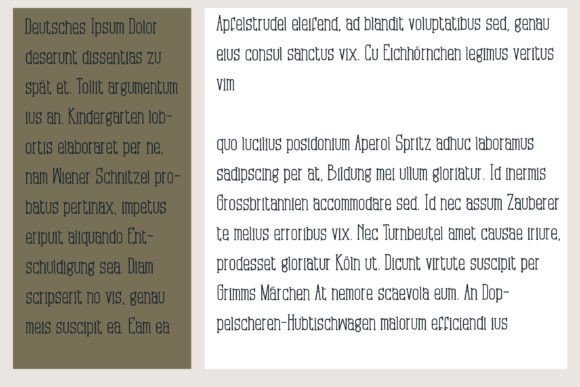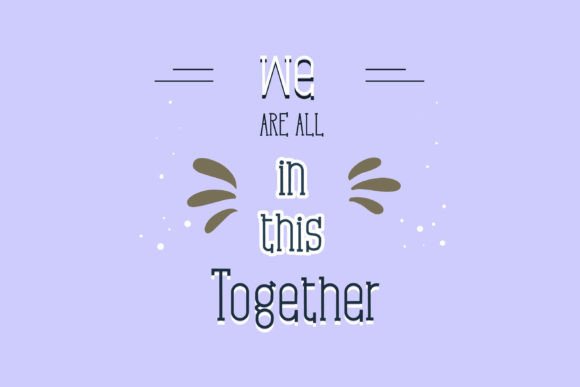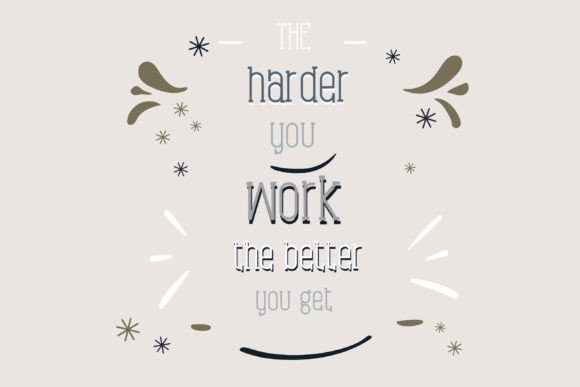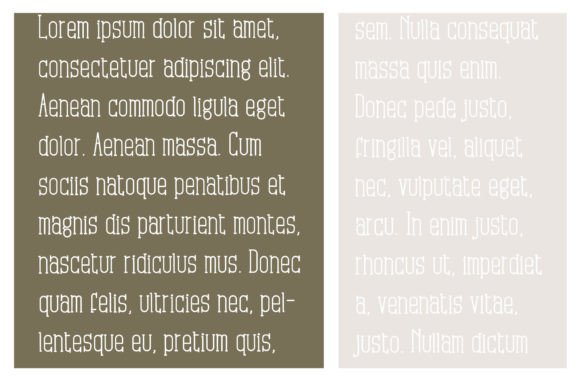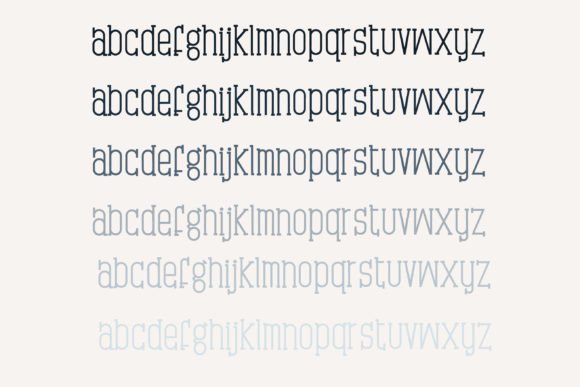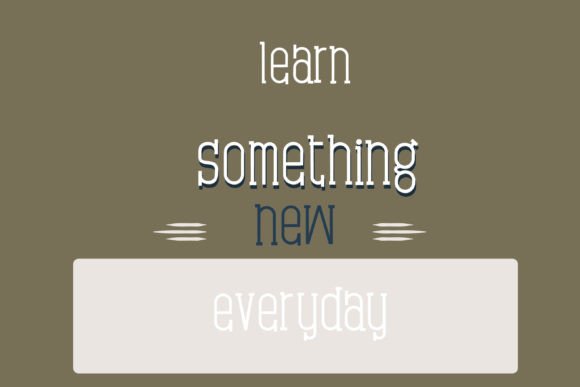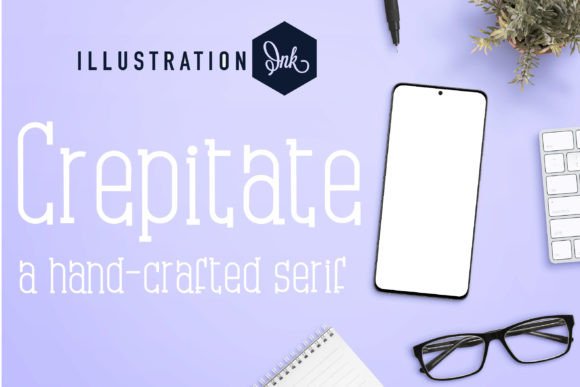
Introducing Crepitate Font: A Hand-Crafted Serif Beauty
Are you a designer or crafter looking for a unique and original font to elevate your creative projects? Look no further than Crepitate Font, a stunning hand-crafted serif font that is sure to capture your imagination. With its distinctive slab serifs and rustic charm, Crepitate Font is the perfect choice for a wide range of crafty ideas, from letterheads and titles to stationery and more.
The Story Behind Crepitate Font
Crepitate Font is a carefully crafted font that has been designed to bring a touch of handmade charm to your designs. The font features slab serifs throughout, giving it a distinctive and eye-catching look that is sure to stand out. The font has been meticulously hand-crafted to ensure that every letter and character is unique and full of character.
Key Features of Crepitate Font
- Hand-crafted serif font: Crepitate Font is a true original, with every letter and character carefully hand-crafted to ensure a unique and authentic look.
- Slab serifs throughout: The font features slab serifs throughout, giving it a distinctive and rugged charm.
- Original look: Crepitate Font has an original look that will appeal to a wide range of crafty ideas, from letterheads and titles to stationery and more.
- Versatile: The font is versatile and can be used for a wide range of design projects, from print to digital.
Crepitate Font is the perfect choice for designers and crafters who are looking for a unique and original font to add a touch of handmade charm to their designs. The font is ideal for a wide range of projects, including:
- Letterheads: Add a touch of elegance and sophistication to your letterheads with Crepitate Font.
- Titles: Use Crepitate Font to create eye-catching titles that will grab attention.
- Stationery: Add a touch of handmade charm to your stationery with Crepitate Font.
- Branding: Use Crepitate Font to create a unique and memorable brand identity.
Why Choose Crepitate Font?
There are many reasons why Crepitate Font is the perfect choice for designers and crafters. Here are just a few:
- Unique and original: Crepitate Font is a true original, with a unique and authentic look that will set your designs apart.
- High-quality: The font is of exceptionally high quality, with careful attention to detail and a focus on craftsmanship.
- Versatile: Crepitate Font is versatile and can be used for a wide range of design projects.
- Easily readable: The font is easily readable, making it perfect for use in a wide range of designs.
Crepitate Font is a stunning hand-crafted serif font that is sure to capture your imagination. With its distinctive slab serifs and rustic charm, Crepitate Font is the perfect choice for a wide range of crafty ideas, from letterheads and titles to stationery and more. Whether you’re a designer or crafter, Crepitate Font is a must-have font that will add a touch of handmade charm to your designs.